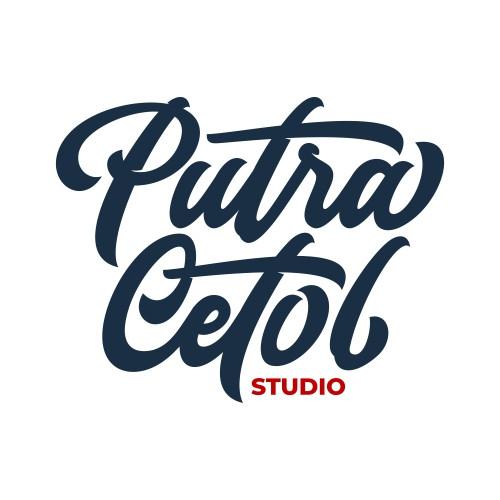
Burning Hammer Font Description
Burning Hammer is an incredibly unique and dramatic styled display font. This font is PUA encoded which means you can access all of the glyphs and swashes with ease! Fall in love with its incredibly versatile style and use it to create spectacular designs!